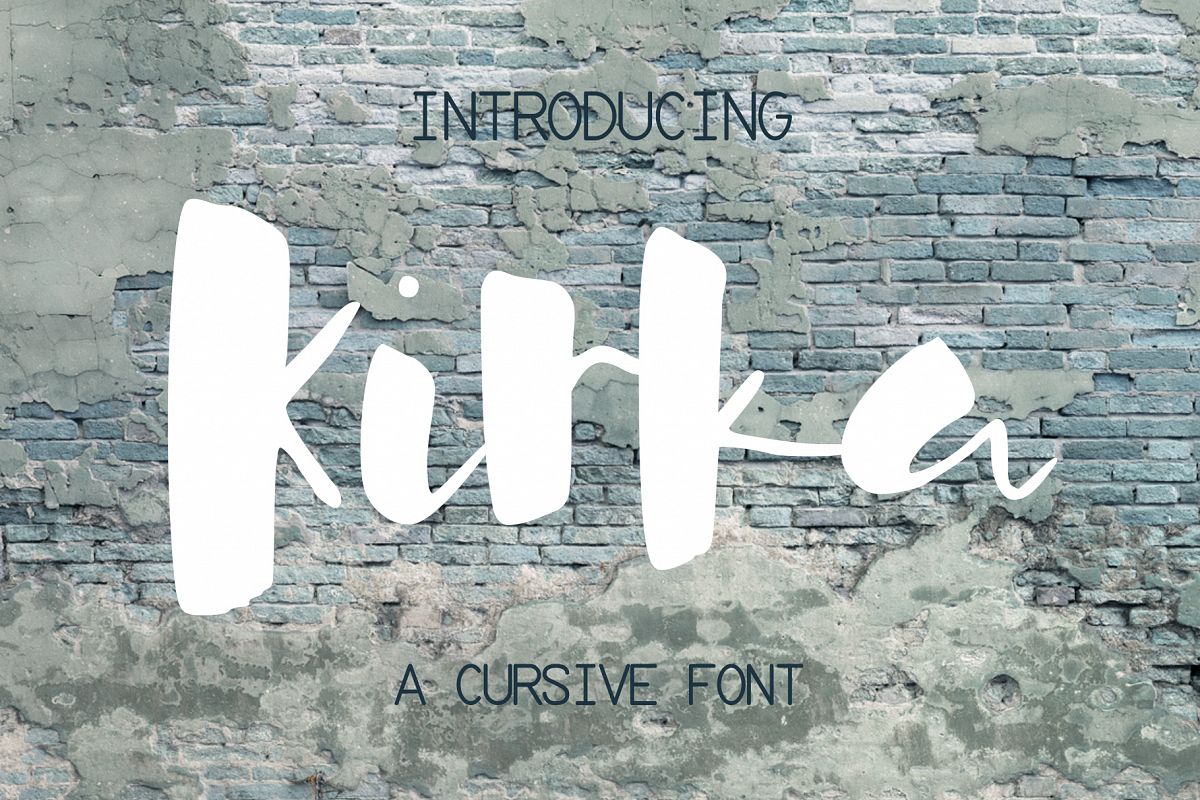
Kirka Font
Introducing Kirka, a beautiful cursive font.?
A gorgeous script with light curves, perfect for any graphic and logo designs, wedding and birthday invitations.
Kirka font contains uppercase & lowercase characters, numbers and punctuations.